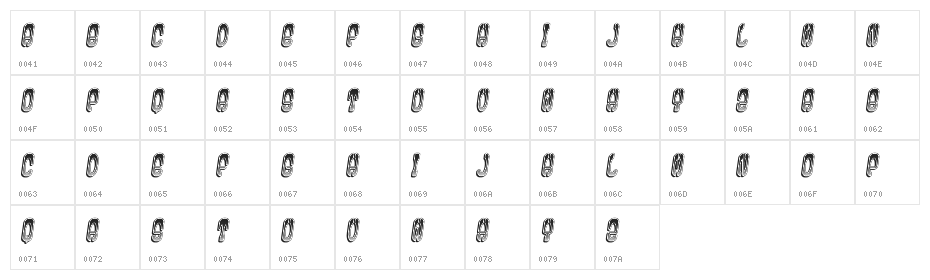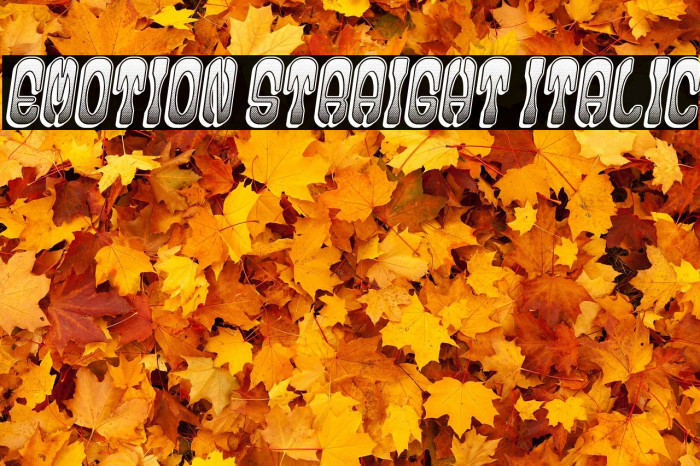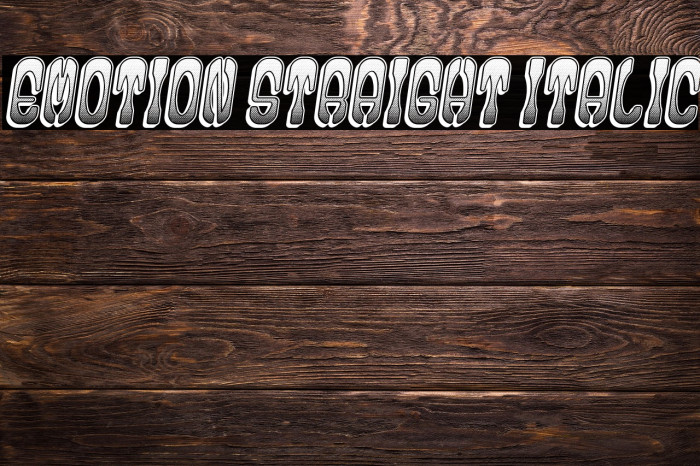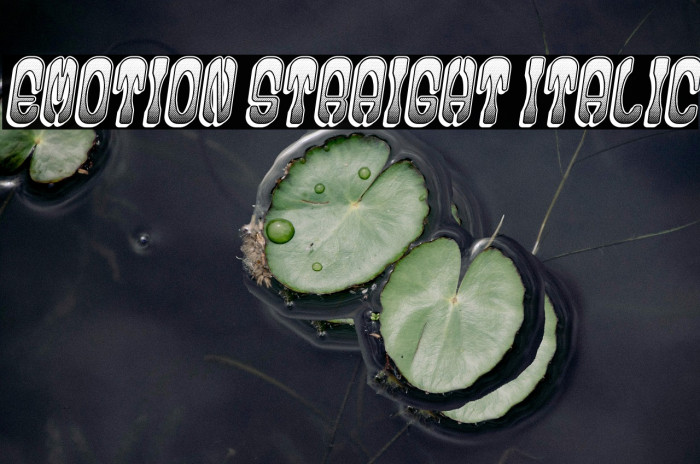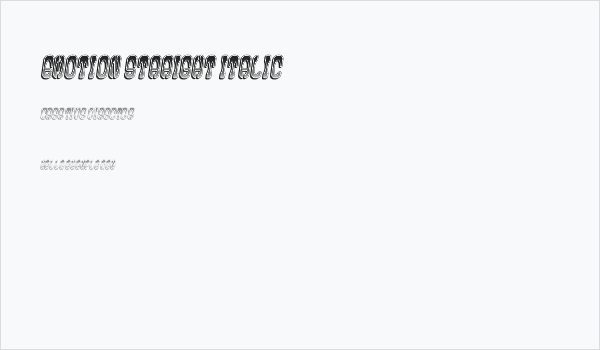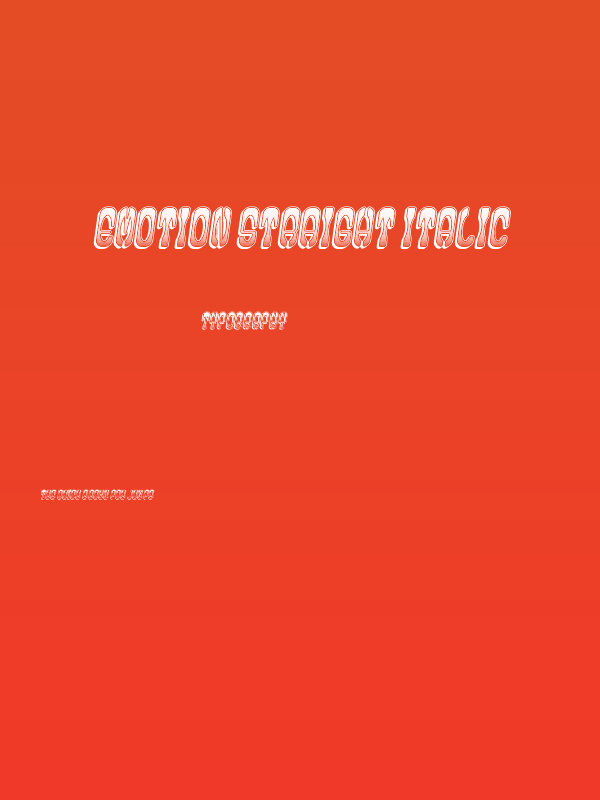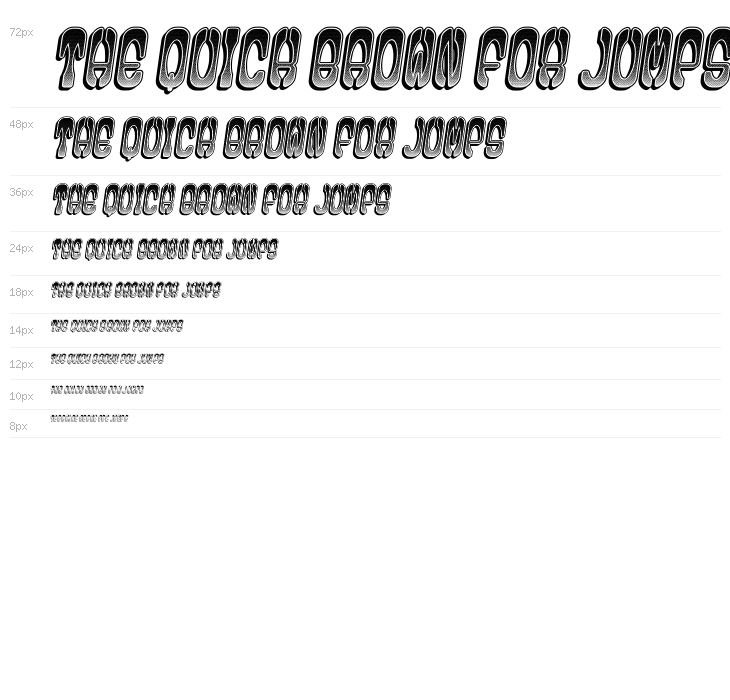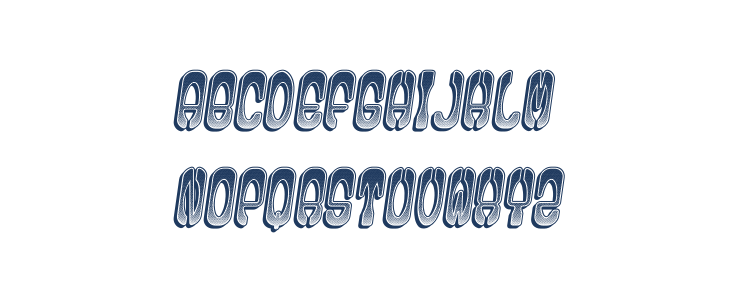
Emotion Straight Italic Font
Emotion Straight Italic Description
This font features a bold and dynamic style with a unique 3D effect, giving each character a sense of depth and movement. The letters are thick and rounded, with a distinct shadowing that enhances the illusion of three-dimensionality. The overall appearance is striking and modern, making it suitable for attention-grabbing designs. The italic slant adds a sense of motion and fluidity, while the consistent stroke width maintains a balanced and cohesive look across all characters.
| Proposed Projects | Ideal for posters, logos, headlines, and any design requiring a bold, modern statement. |